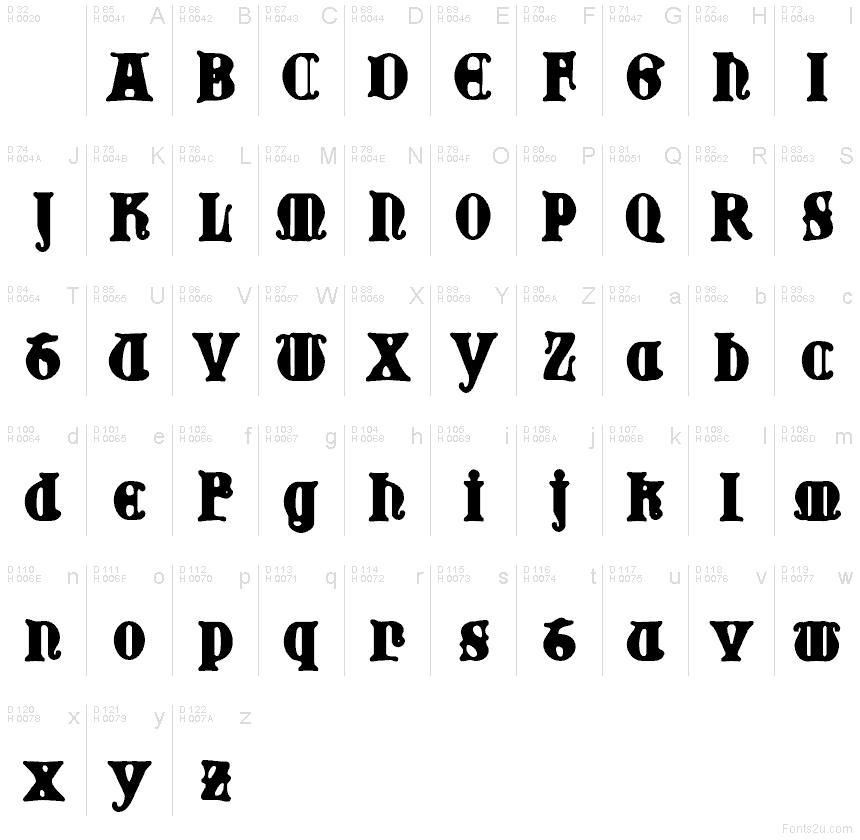
CS Emory Drawn font by Craft Supply Co. is a free bold medieval gothic display font. Built within the CS Emory family, it stands out with inky, hand-drawn contours, bulbous bowls, and softly scalloped edges that feel carved yet plush. The rhythm is heavy but rounded, with quirky apertures that catch light like wet ink—giving classic blackletter bones a warm, tactile presence.
Using CS Emory Drawn, headlines snap into focus with drama and charm—great for fantasy book covers, craft beer labels, RPG titles, boutique logos, festival posters, and merch. Its tight, organic spacing keeps word shapes cohesive at large sizes. Pair this free font with a clean, low-contrast sans for body copy, and let the Drawn cuts take the spotlight at 48pt and up.